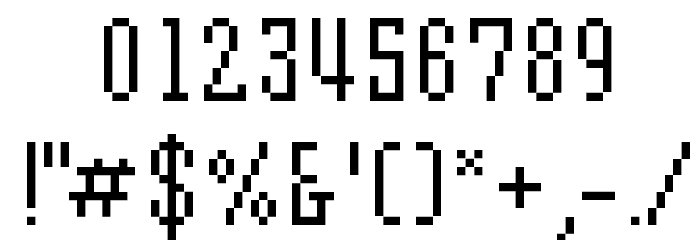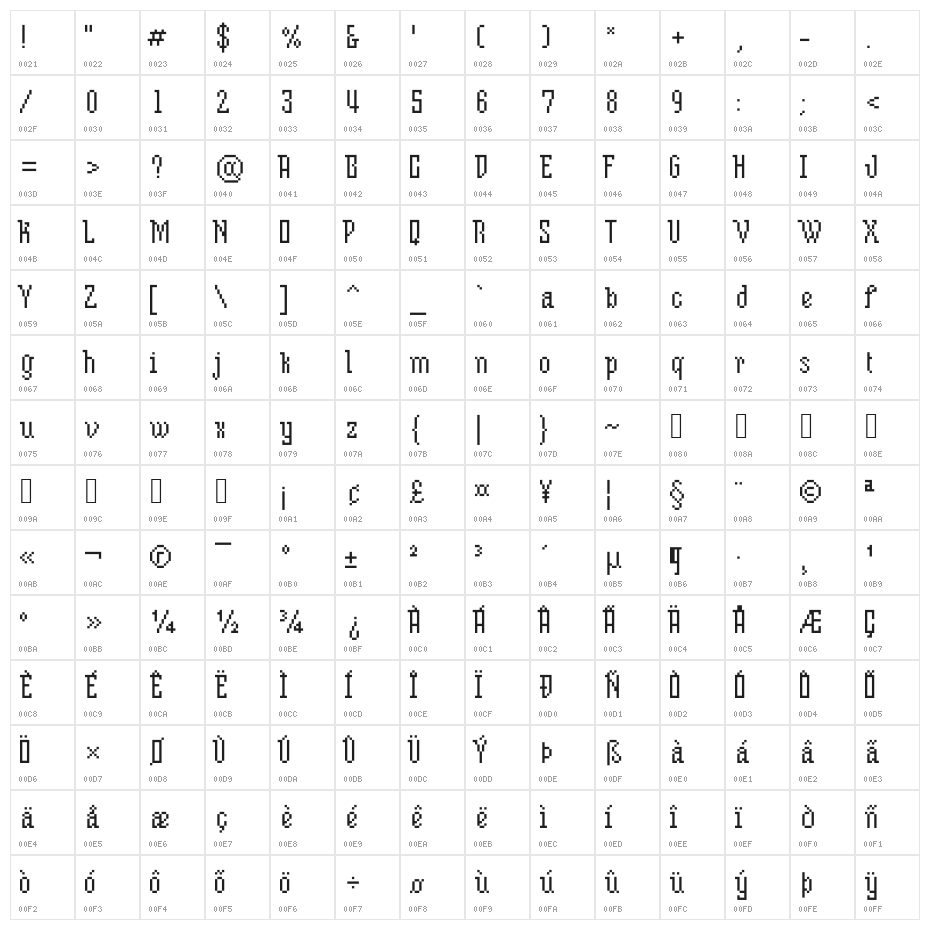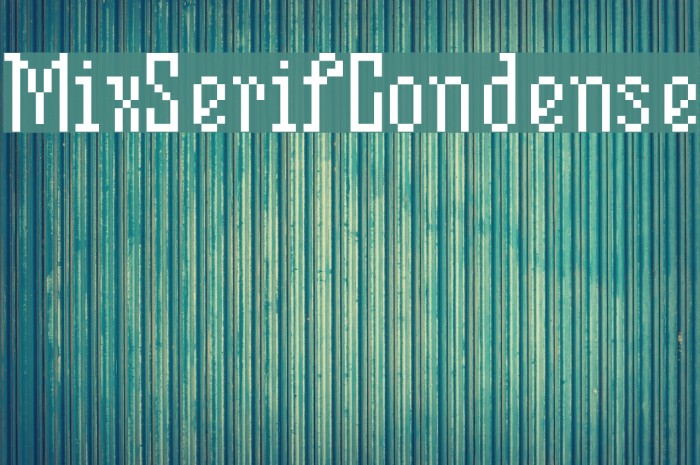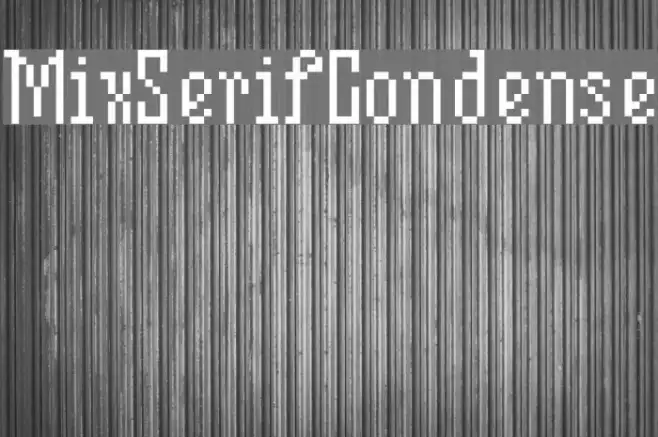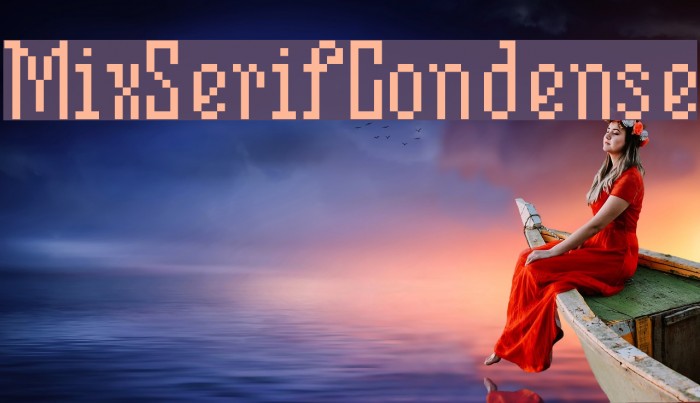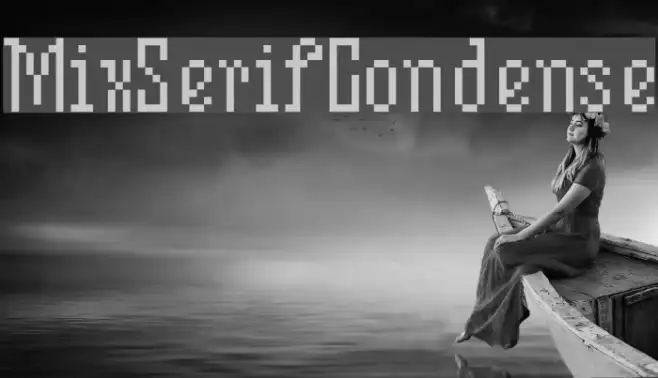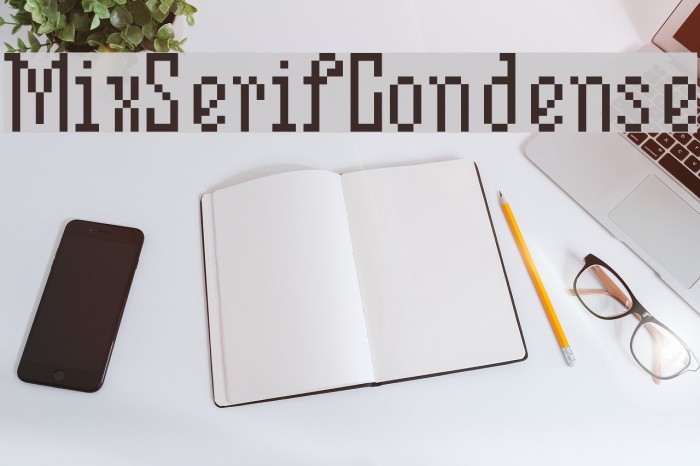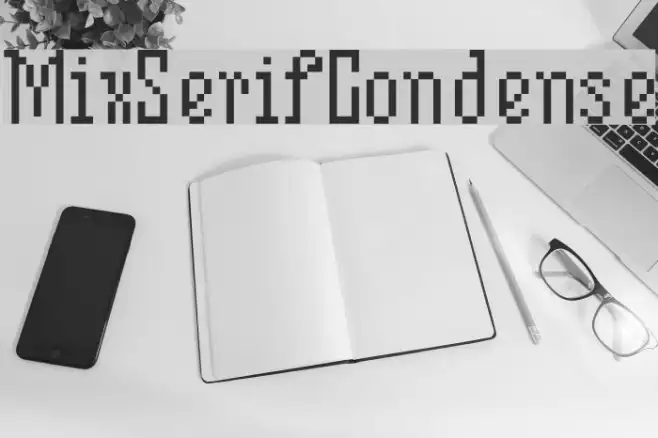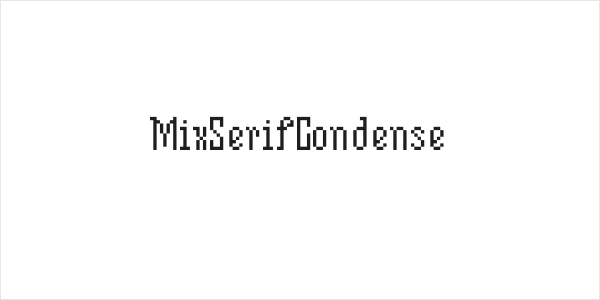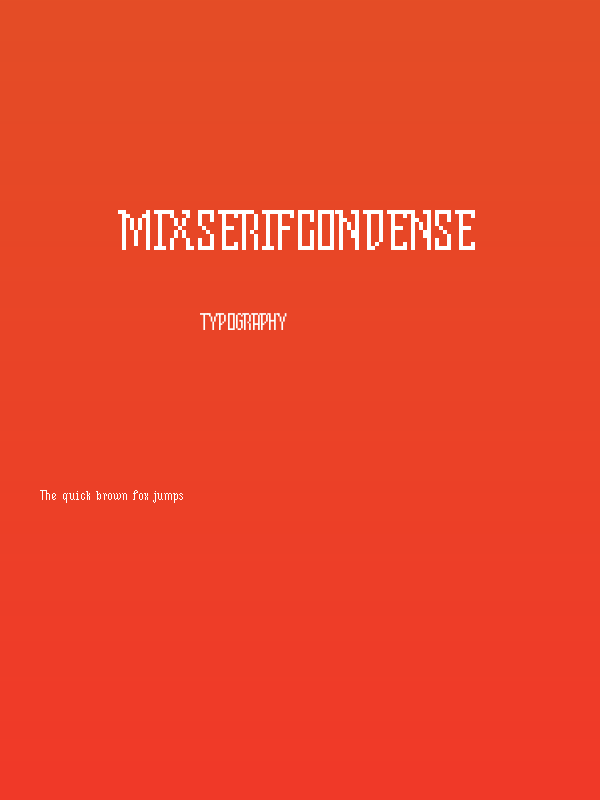
MixSerifCondense Font
This font features a unique blend of serif and condensed styles, creating a distinctive appearance that is both modern and retro. The uppercase letters are bold and structured, with a slight serif touch that adds a classic feel. The lowercase letters maintain a consistent height, providing a balanced look across text. The numerals are clear and legible, making them suitable for various applications. Special characters are well-defined, enhancing the font's versatility. The overall design is geometric, with a pixelated aesthetic that gives it a digital, tech-inspired vibe.
| Overall Style | Modern, Retro |
| Use Case | Headlines, Logos, Digital Art |
| Proposed Projects | Ideal for digital art projects, retro-themed designs, tech branding, and video game interfaces. |